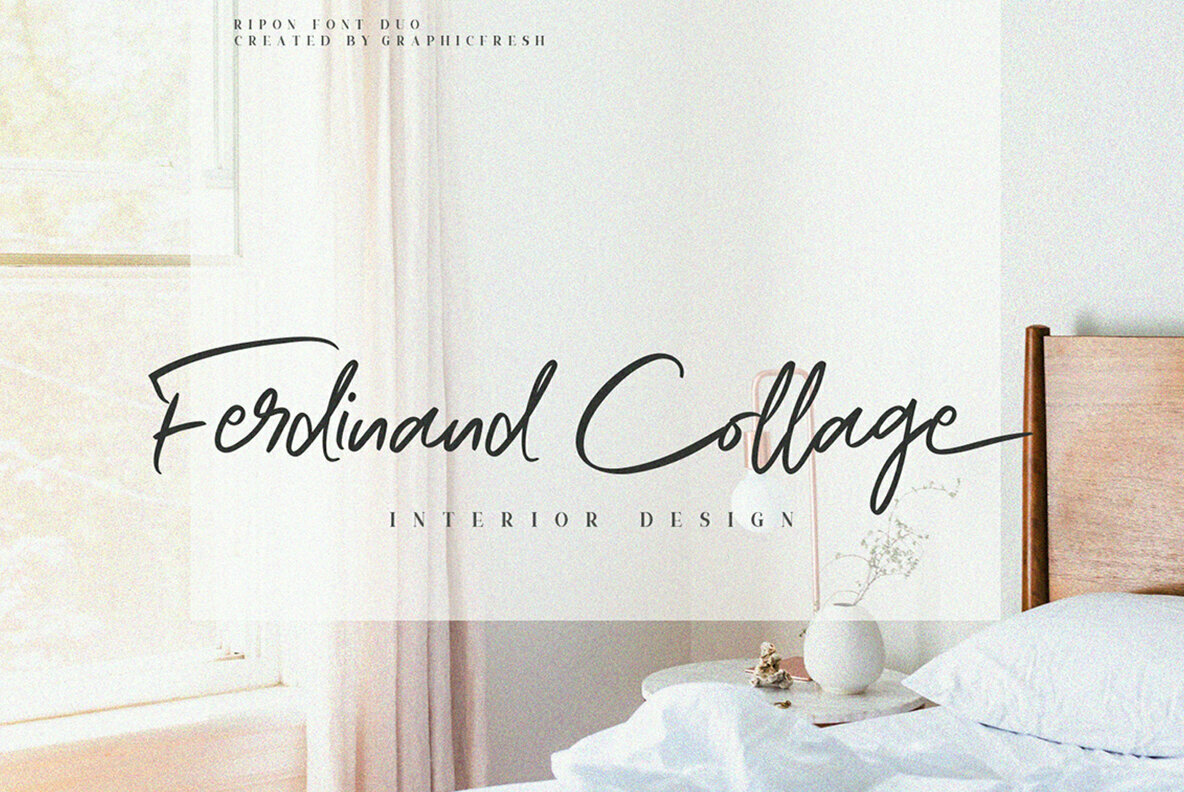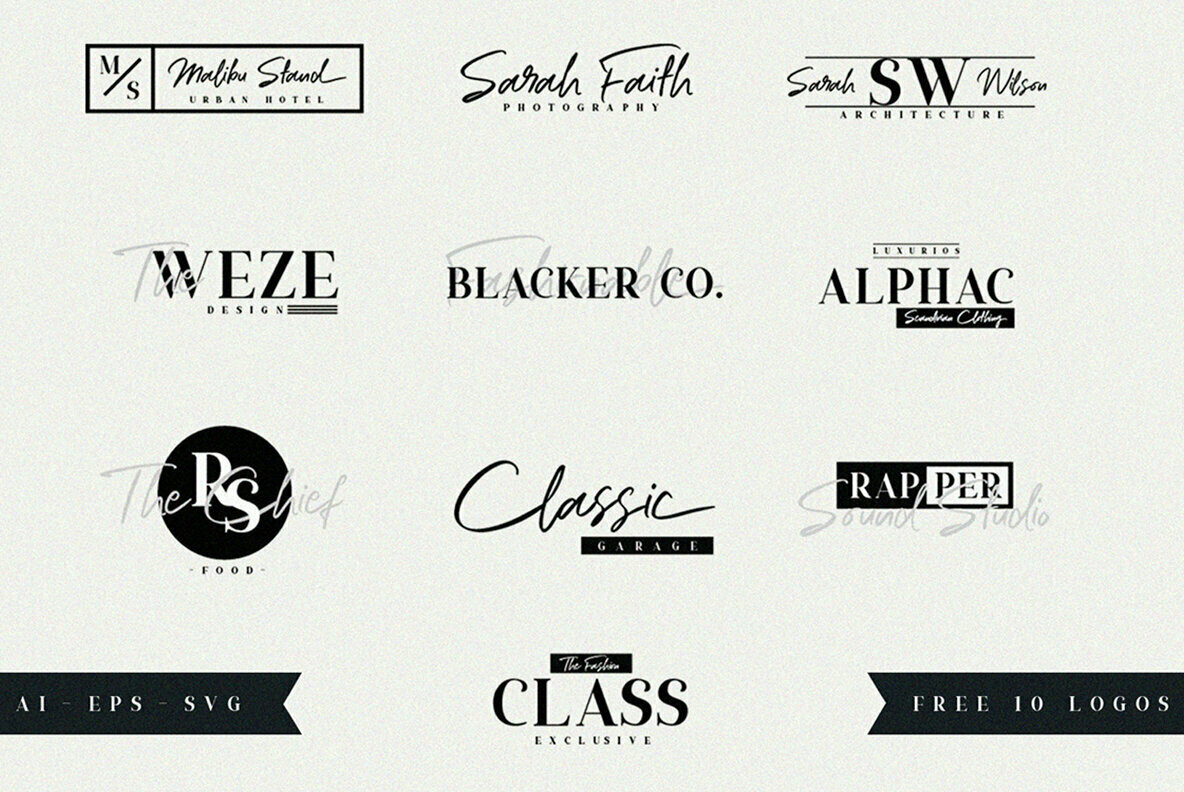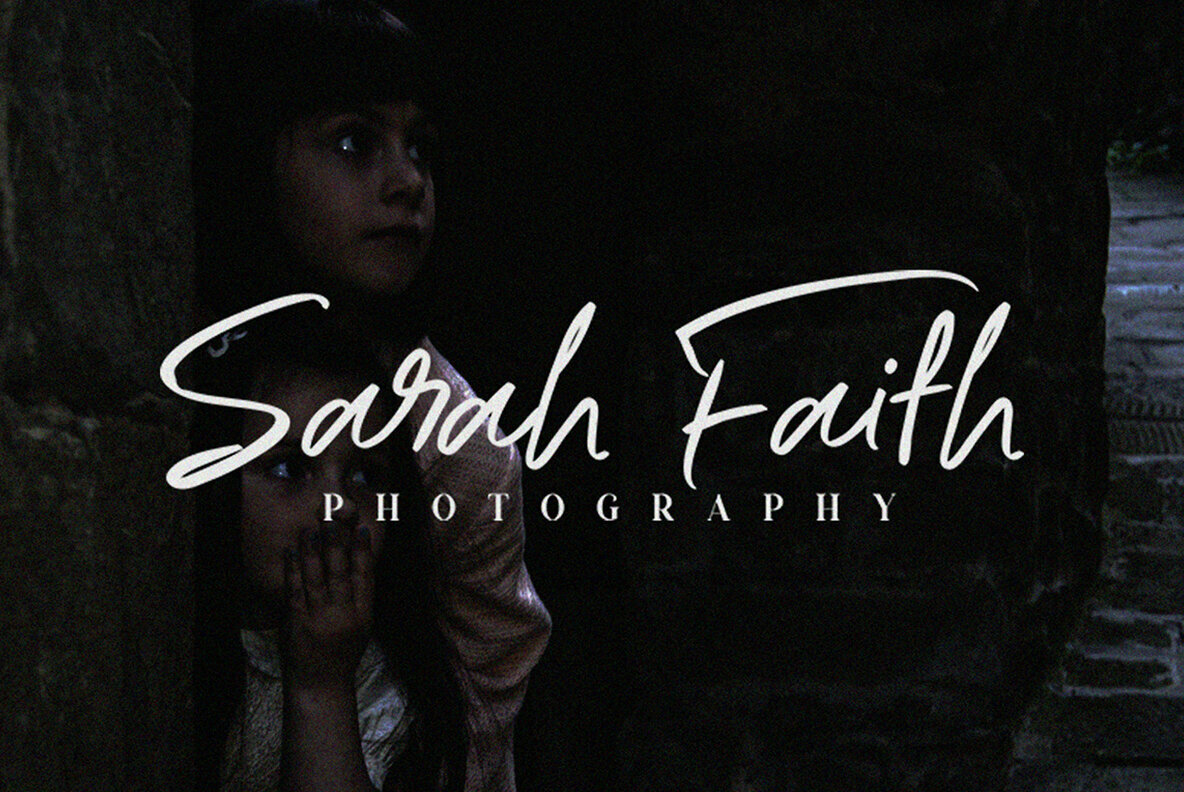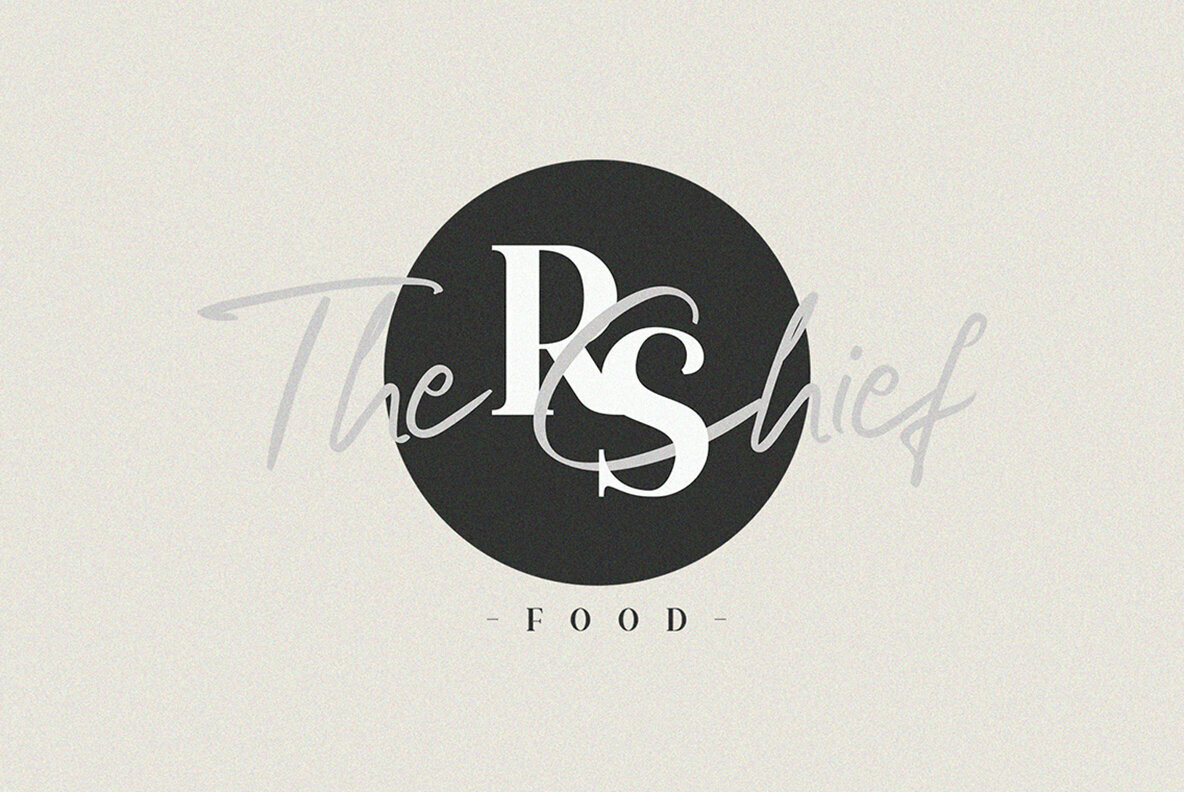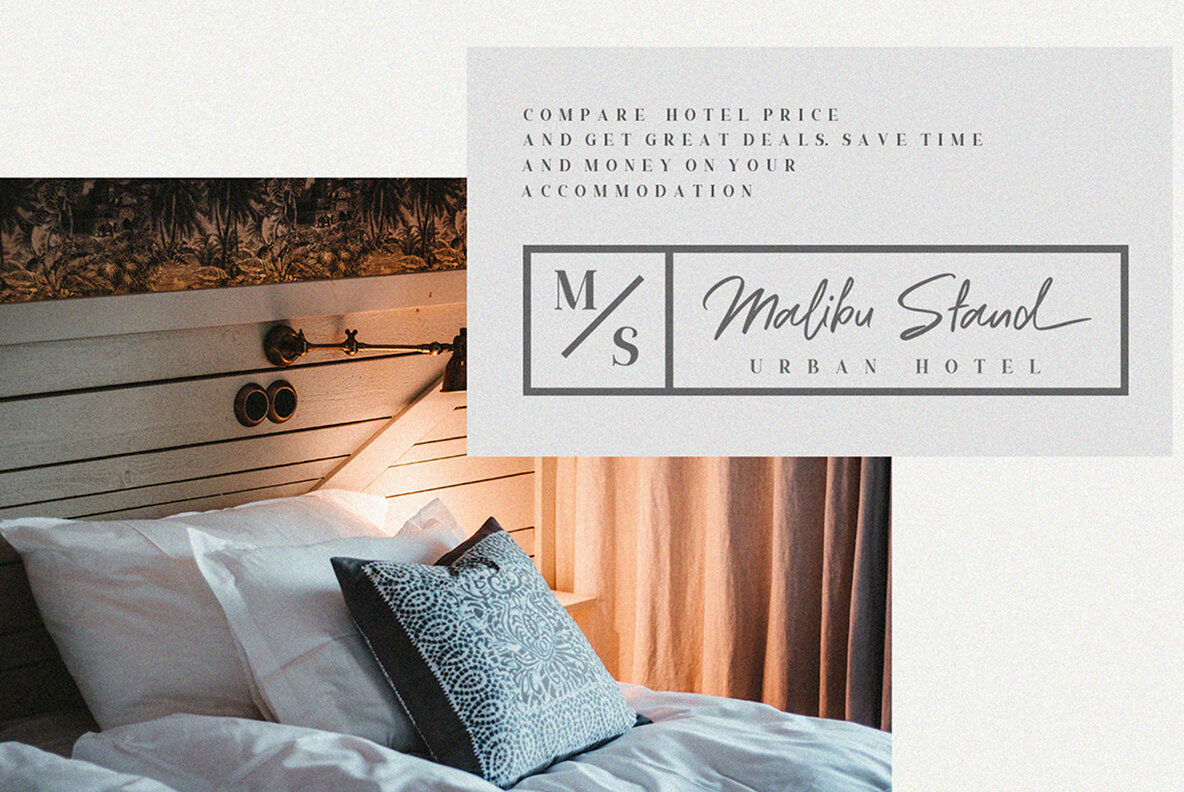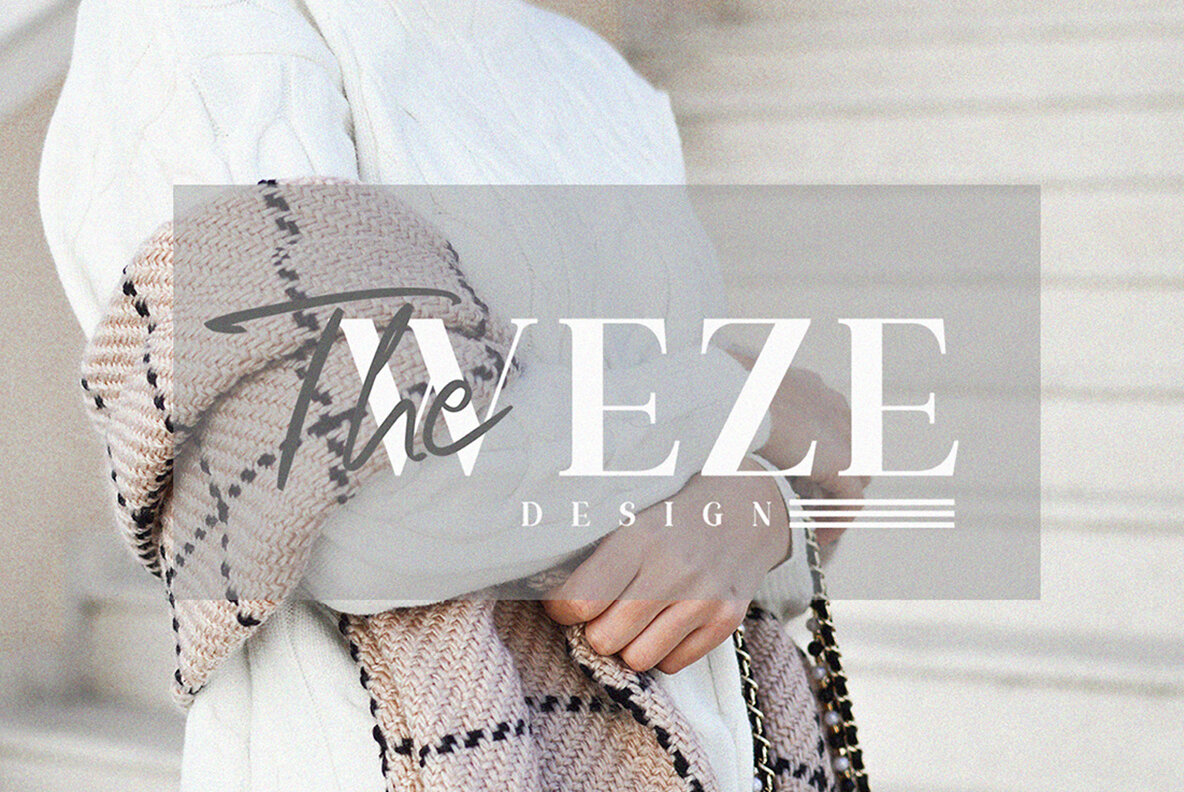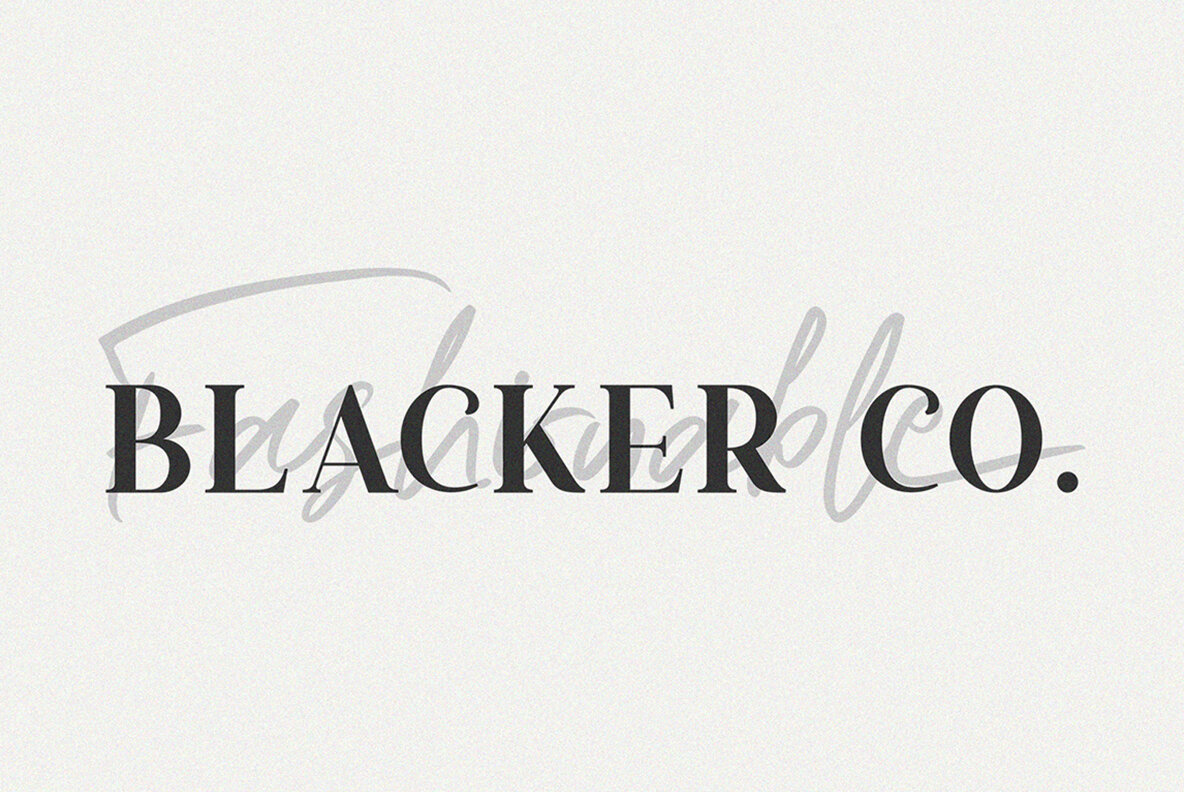
Ripon: Classic Serif Meets Elegant Script
Ripon by Graphicfresh marries the enduring appeal of serif fonts with the fluid grace of script lettering. This unique combination offers designers two distinct styles under a single name, providing flexibility and sophistication for various projects.
Ideal for crafting wedding invitations, creating distinctive logos, or designing engaging book covers, Ripon shines across diverse creative fields. From stationery and marketing materials to magazine layouts and motivational quotes, its versatility is undeniable.
• Complimentary serif and script styles perfect for traditional and modern designs.